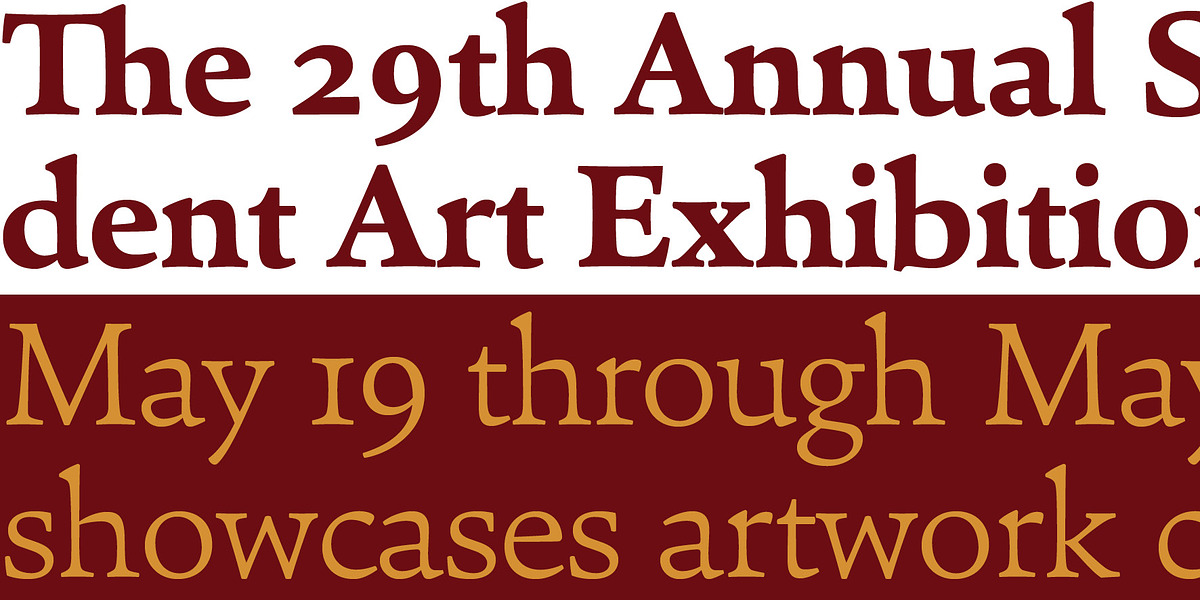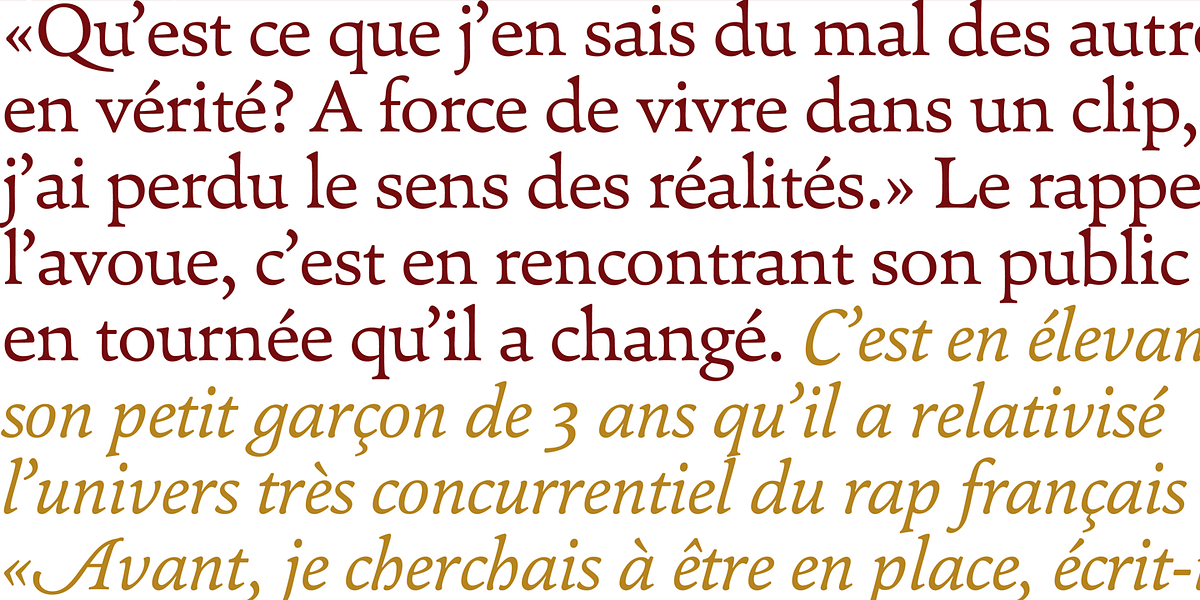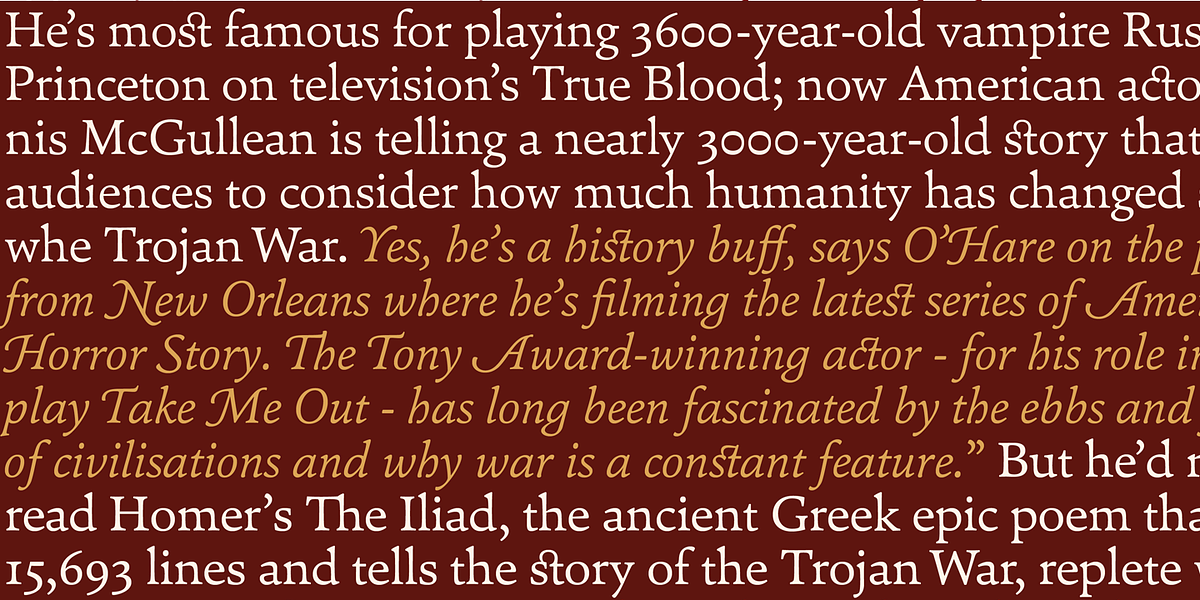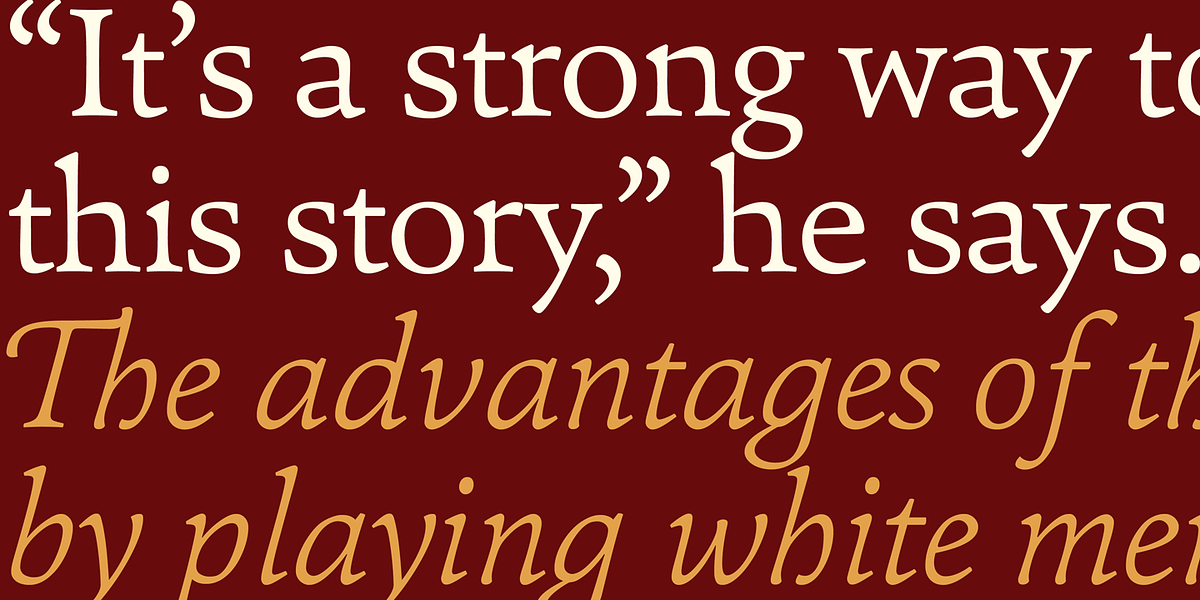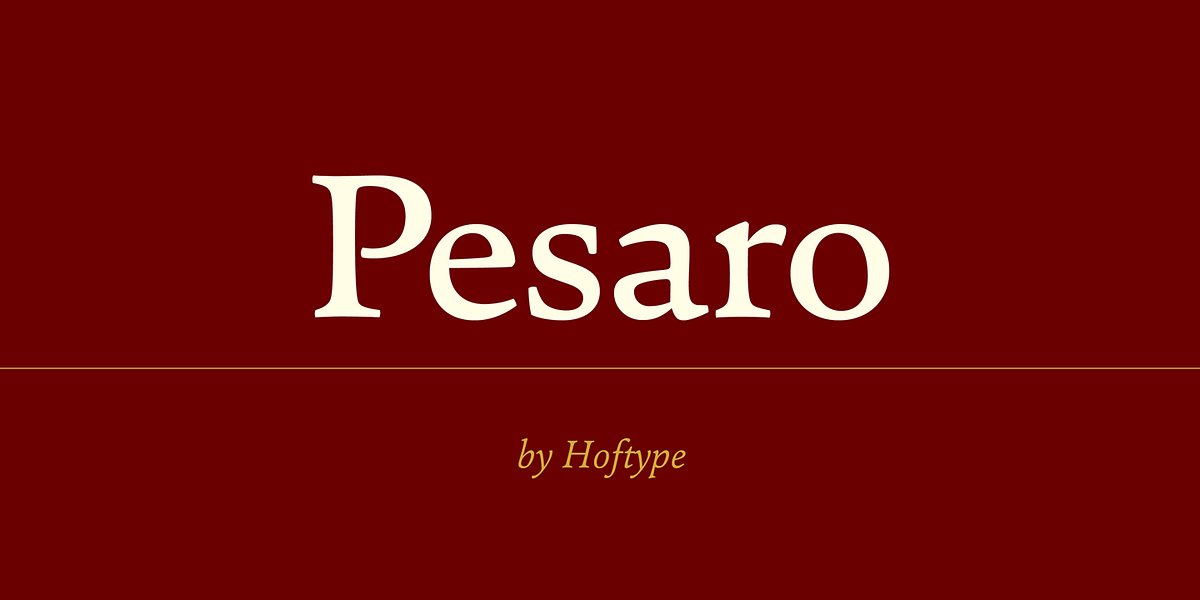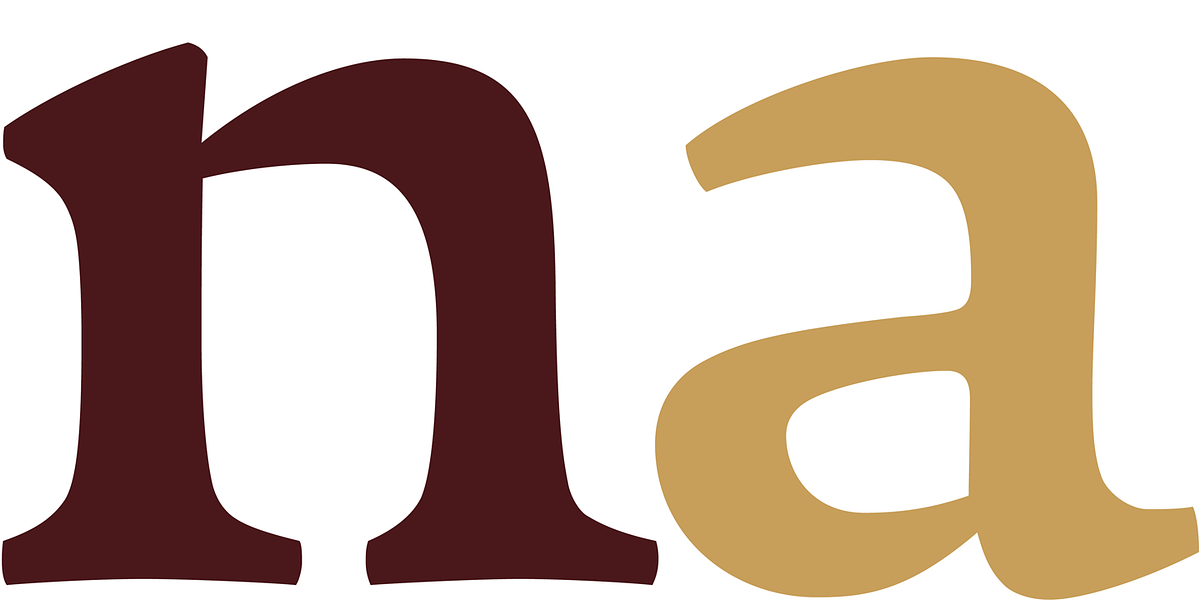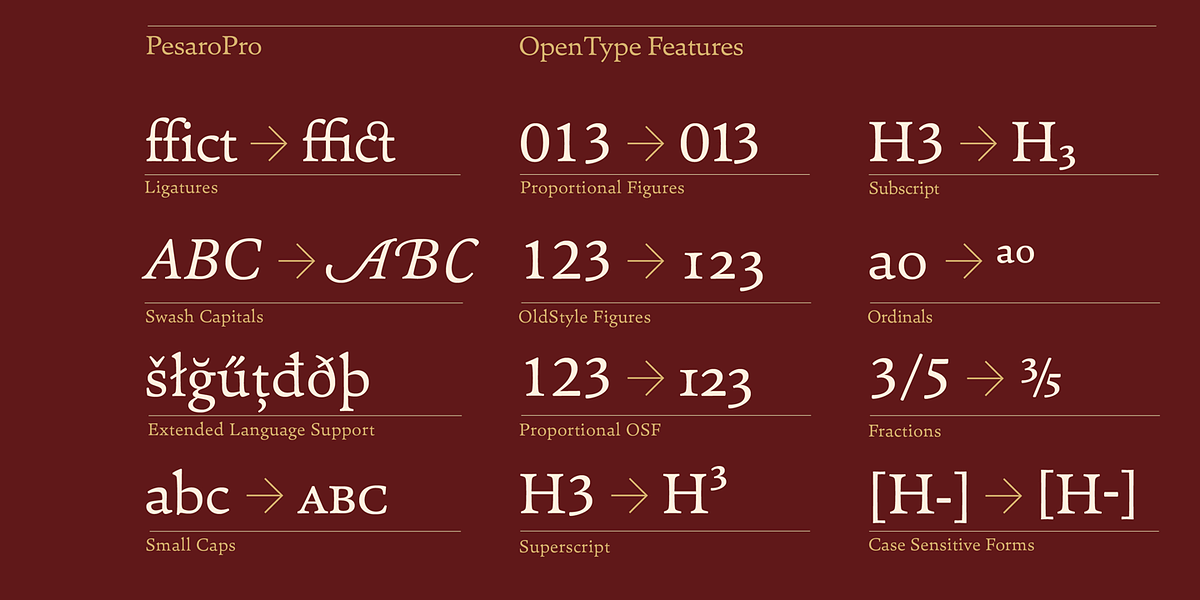
Pesaro
Pesaro is a serif typeface inspired by early Venetian printers like Jensen and Manutius. It aims for a contemporary design while retaining the stability and strong text qualities of old style serifs. The font family includes 12 styles and offers extensive language support and typographic features such as ligatures, various numeral styles, currency symbols, and elegant swash capitals in italic styles.